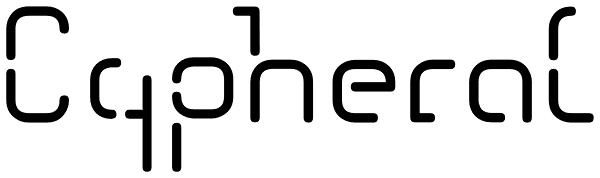
Cypheral
A type between letter and number. Cypherals' fresh typeface is a mix-up of number parts and lines that reveal to be letters. So who is to say that numbers and letters don't have much in common?